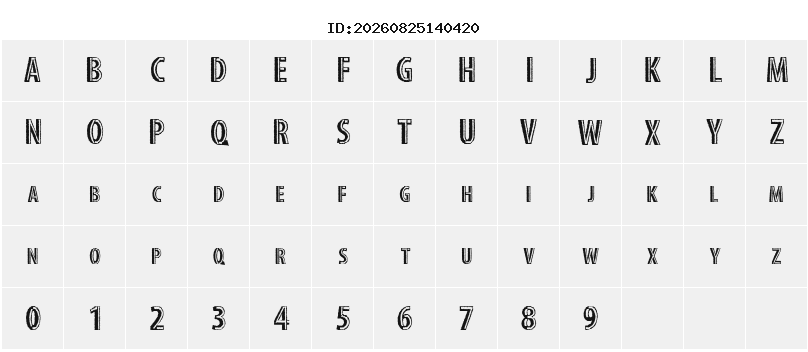
stitch font Preview
• Font Name: stitch font
• Font ID: stitch font:Version 1.00
• Full Font Name: STITCH FONT
• Version: Version 1.00 January 10, 2011, initial release
• PostScript Name: STITCHFONT
• Designer: GBstudio - shub
• Manufacturer: GBstudio
About stitch font.ttf
stitch font.ttf is a modern, elegant sans-serif font designed for ultimate readability and visual harmony. Perfect for branding, headlines, web design, and print materials.